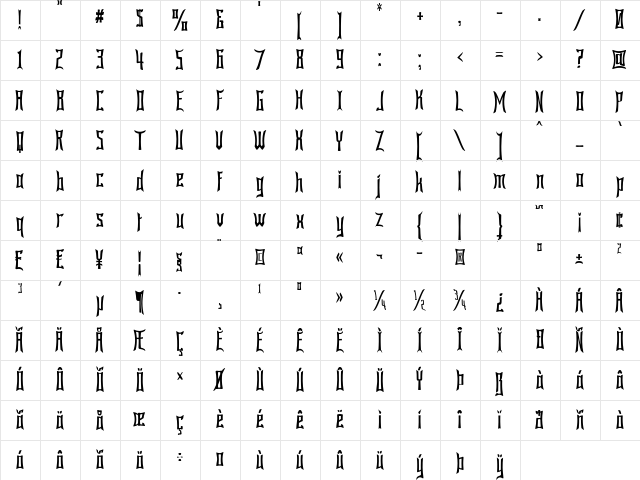
Bardour Regular Font Preview
Bardour Regular
Bardour Regular Font Details
Design Context for Bardour Typeface
Bardour is a composed and adaptable typeface that performs quietly and consistently across a wide range of design contexts.